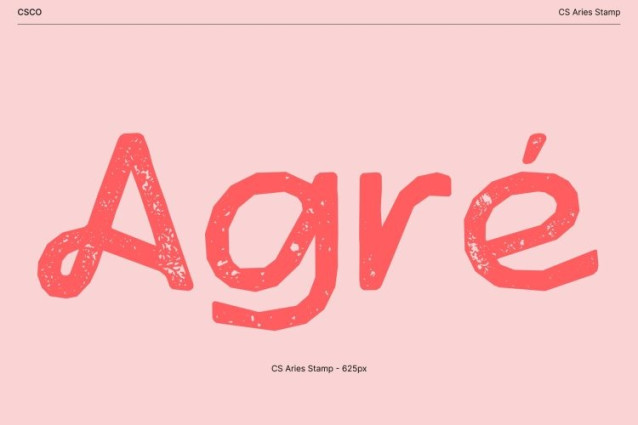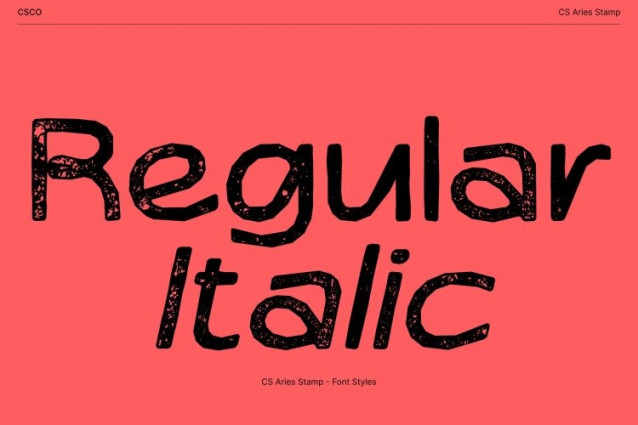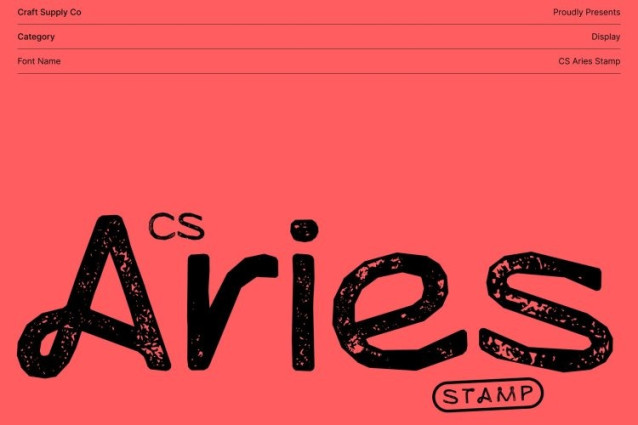
CS Aries Stamp Font
CS Aries Stamp Font This is a display sans serif font designed to radiate joy, friendliness, and bold personality. Its rounded, whimsical letterforms create a playful and funky visual language that feels instantly approachable. Built for expressive design, this font brings lighthearted charm and creative energy to any composition.
Rounded Forms for a Joyful, Inviting Look
The soft, rounded shapes of this font give it a cheerful and welcoming appearance. Each character feels lively and engaging, making the font perfect for designs that aim to feel fun, casual, and full of warmth. Its friendly structure makes messages feel accessible while still standing out visually.
Stamped Texture for Authentic, Retro Character
The stamp effect adds a rough, slightly uneven texture that enhances the font’s character and charm. This handcrafted finish introduces a subtle vintage and retro feel, giving the typeface a more tactile, organic presence. The textured look adds depth and authenticity, making designs feel more expressive and less polished perfect for creative storytelling.
Versatile for Fun, Creative, and Unique Projects
This font ideal for food packaging, playful branding, posters, labels, merchandise, and creative promotional materials. Its combination of bold rounded shapes and stamped texture ensures high visual impact while maintaining a joyful tone. Whether used large or small, this font captures attention and delivers personality with ease.